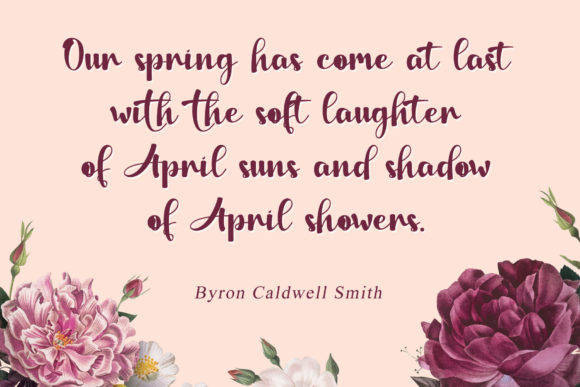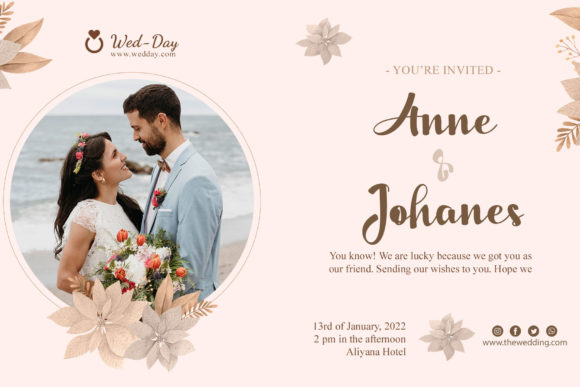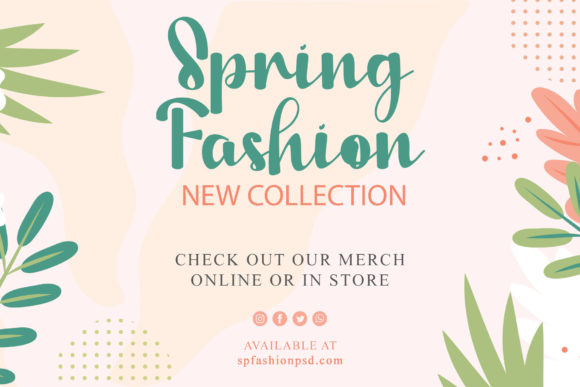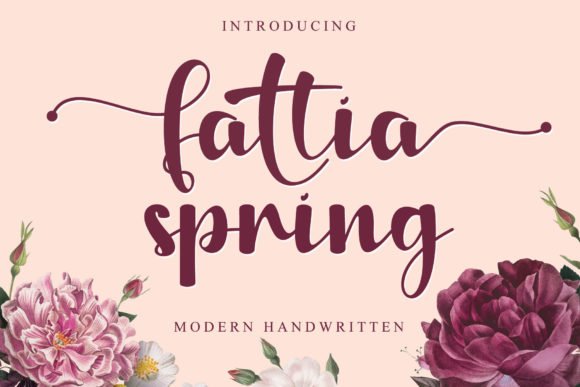
Introduction to Fattia Spring Font
Fattia Spring is a gorgeous script font created with delicate and sweet vibes.
This font is PUA encoded which means you can access all glyphs and swashes with ease Celebrate spring with the beautiful Fattia Spring font.
Key Features of Fattia Spring Font